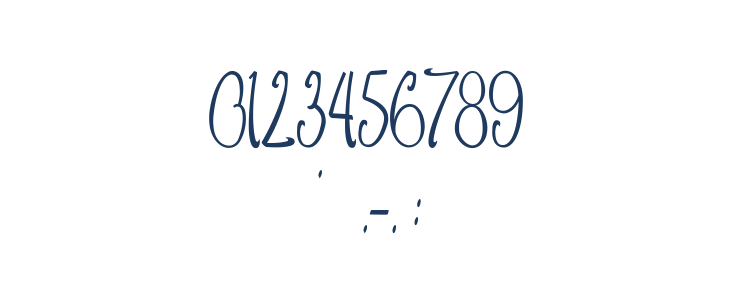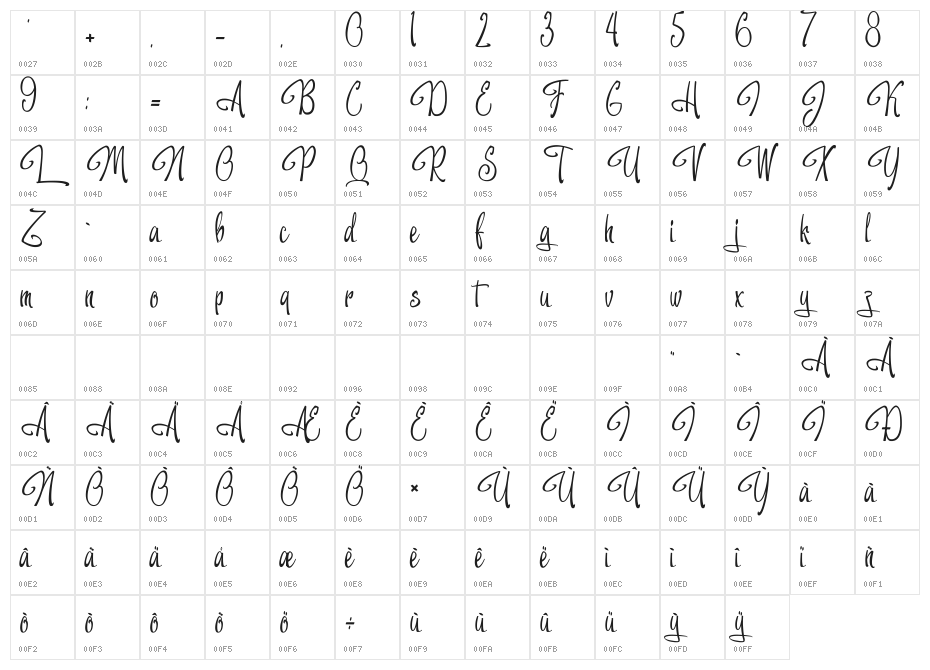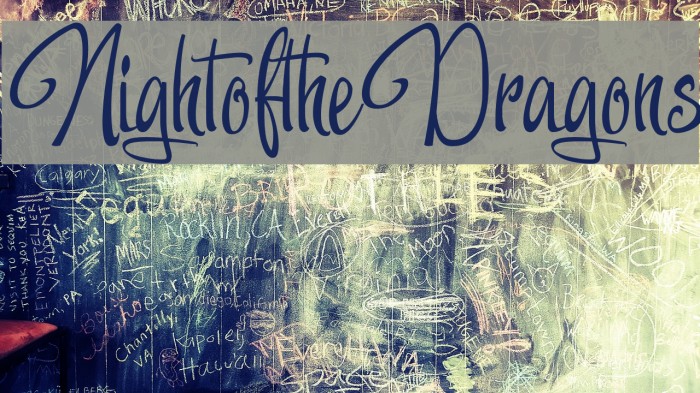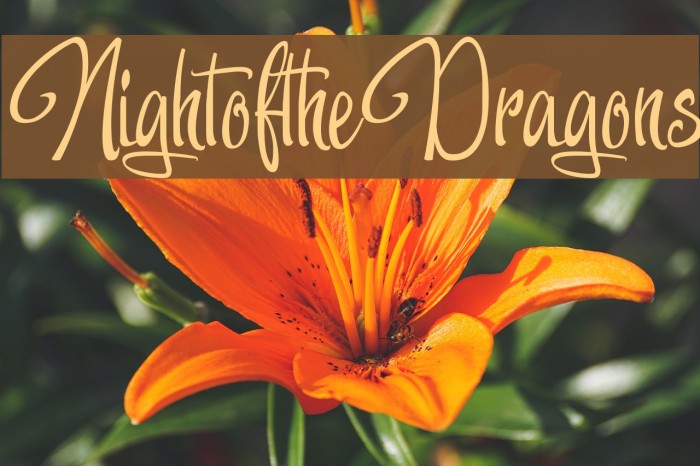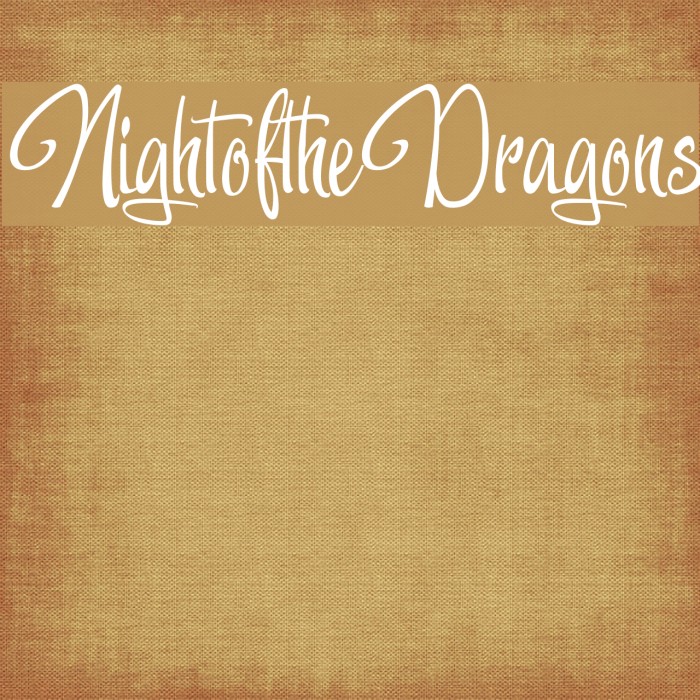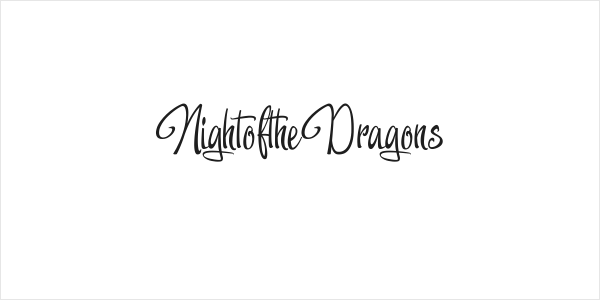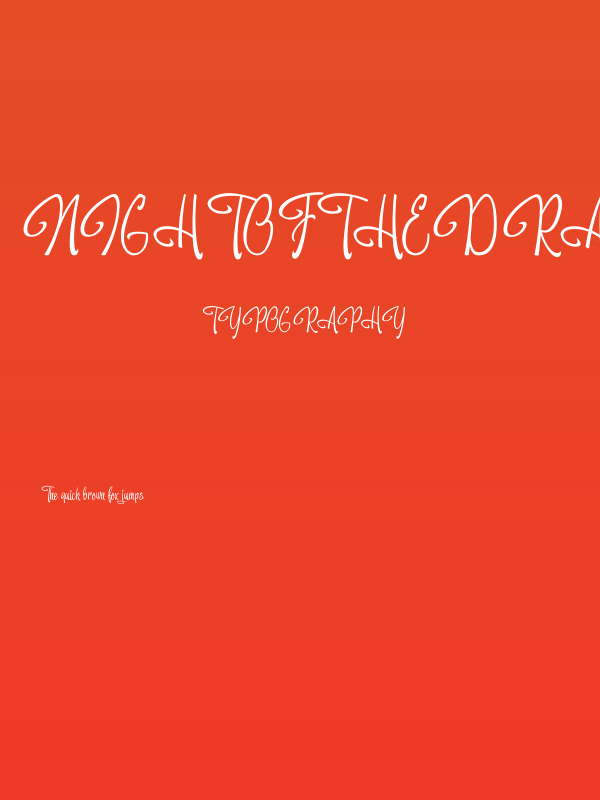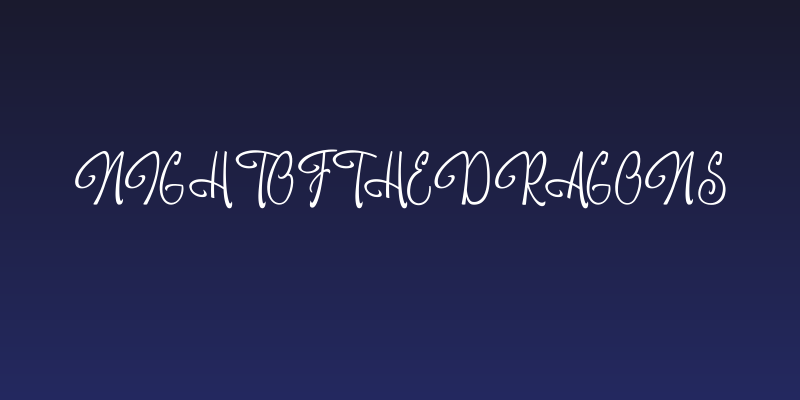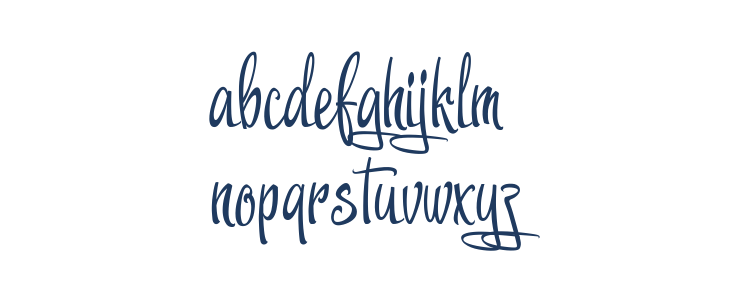
NightoftheDragons Font
NightoftheDragons Description
This font features an elegant and flowing script style, characterized by its smooth, cursive lines and graceful curves. The uppercase letters are particularly ornate, with flourishes that add a touch of sophistication and charm. The lowercase letters maintain a consistent style, with a slightly more restrained elegance that complements the uppercase characters. Numbers and special characters are designed to match the overall aesthetic, providing a cohesive look across all glyphs. The font's design is reminiscent of classic calligraphy, making it suitable for projects that require a touch of elegance and refinement.
| Proposed Projects | Ideal for wedding invitations, elegant branding, greeting cards, and decorative headings. |